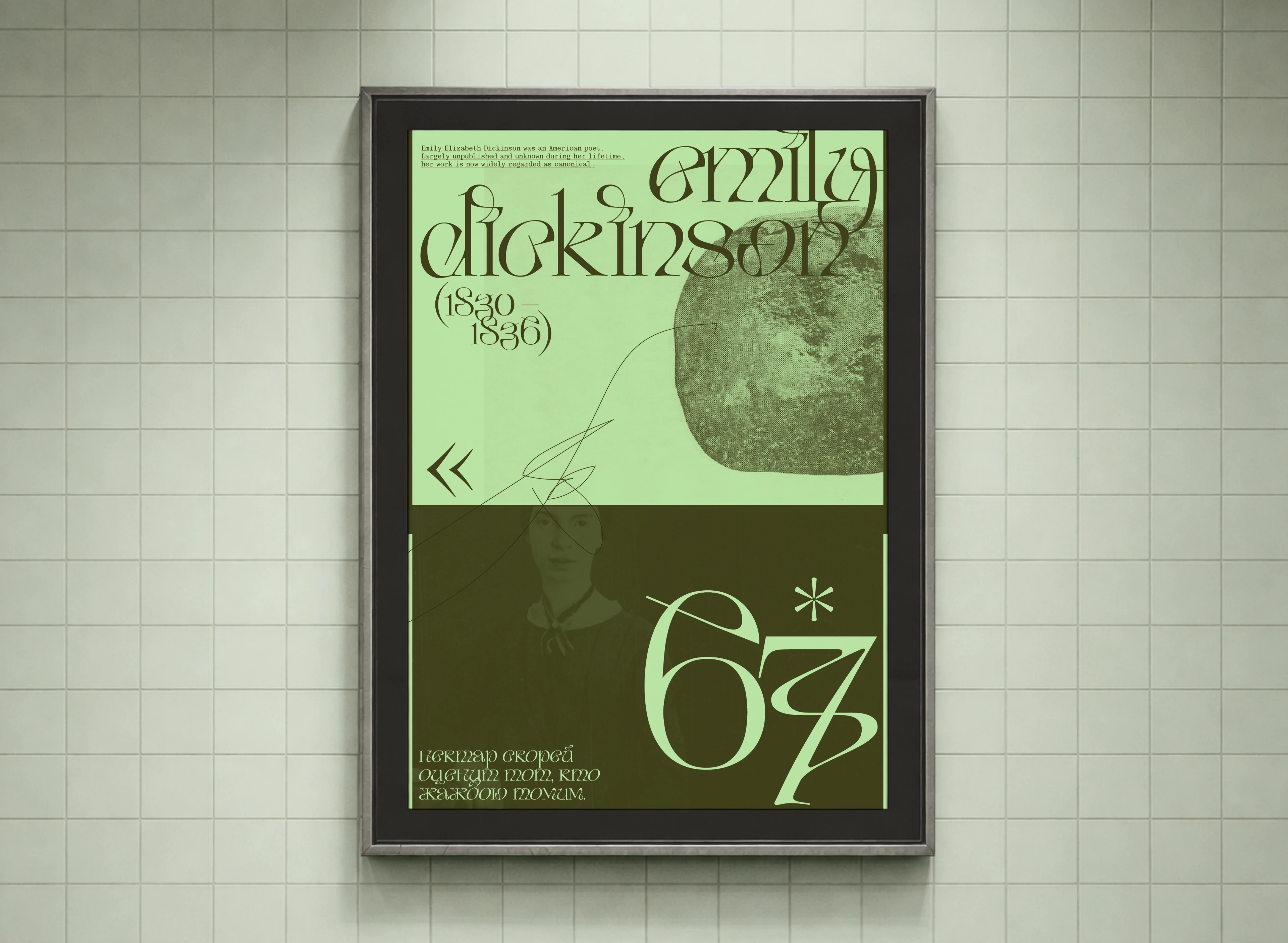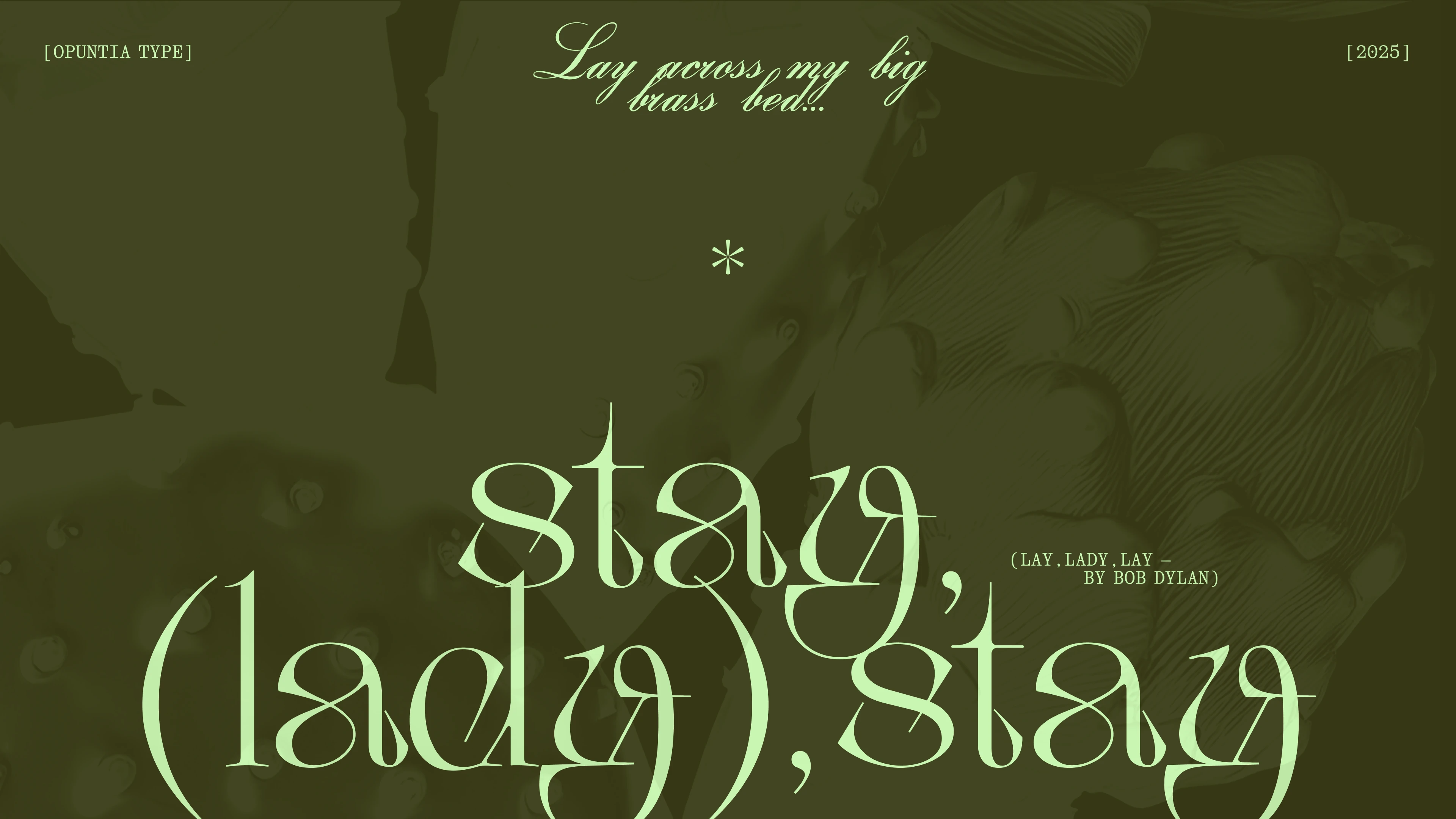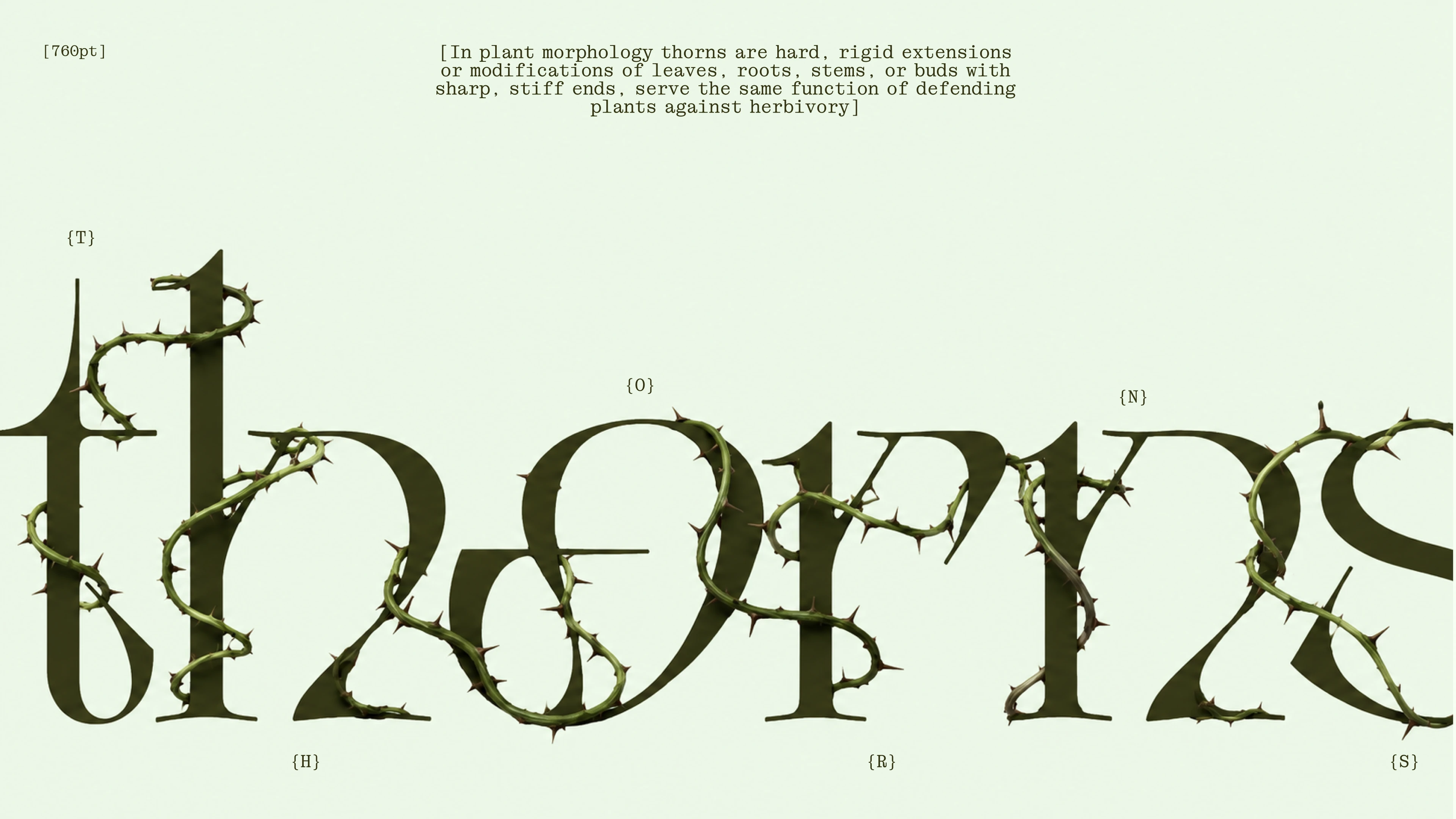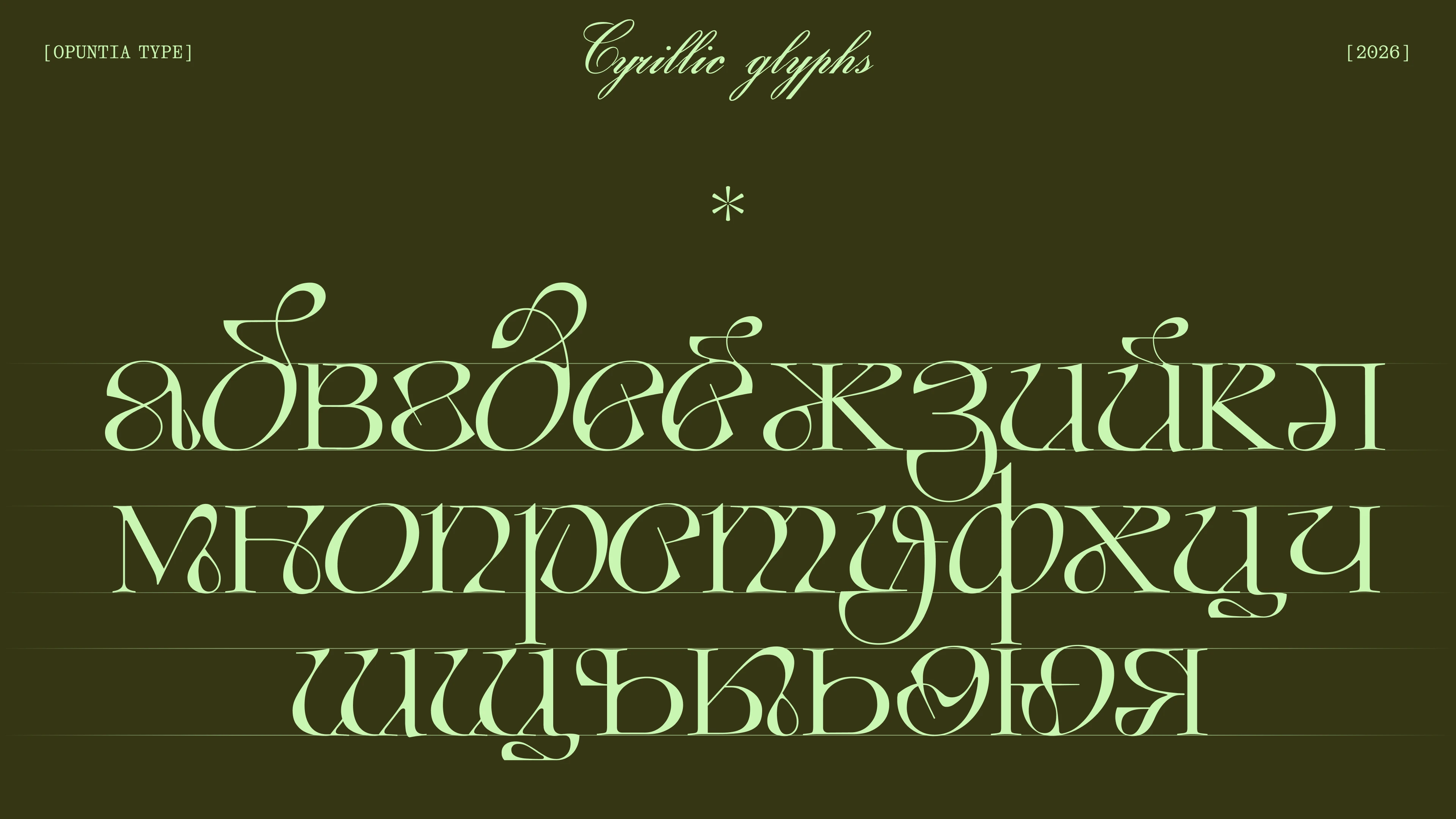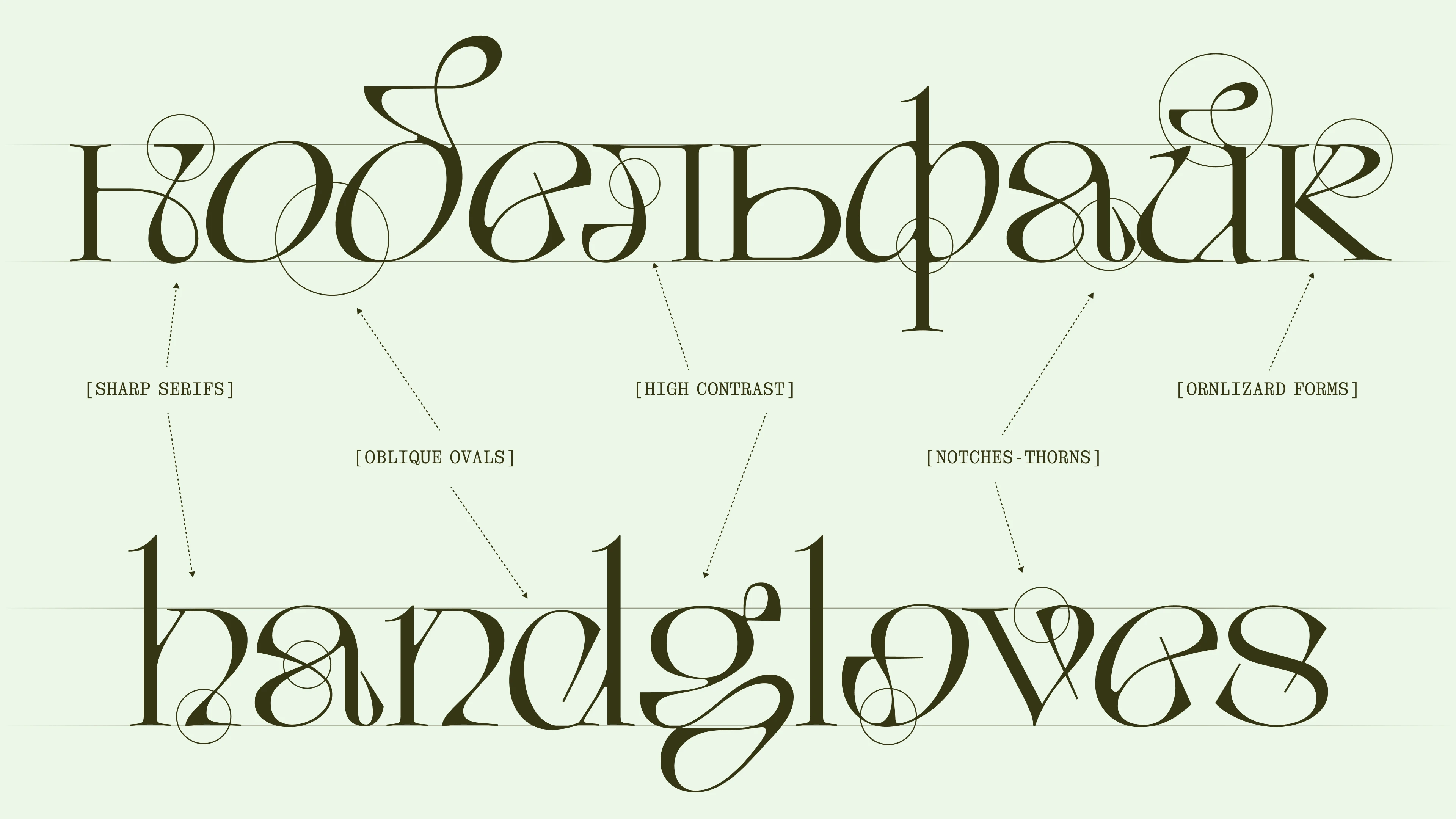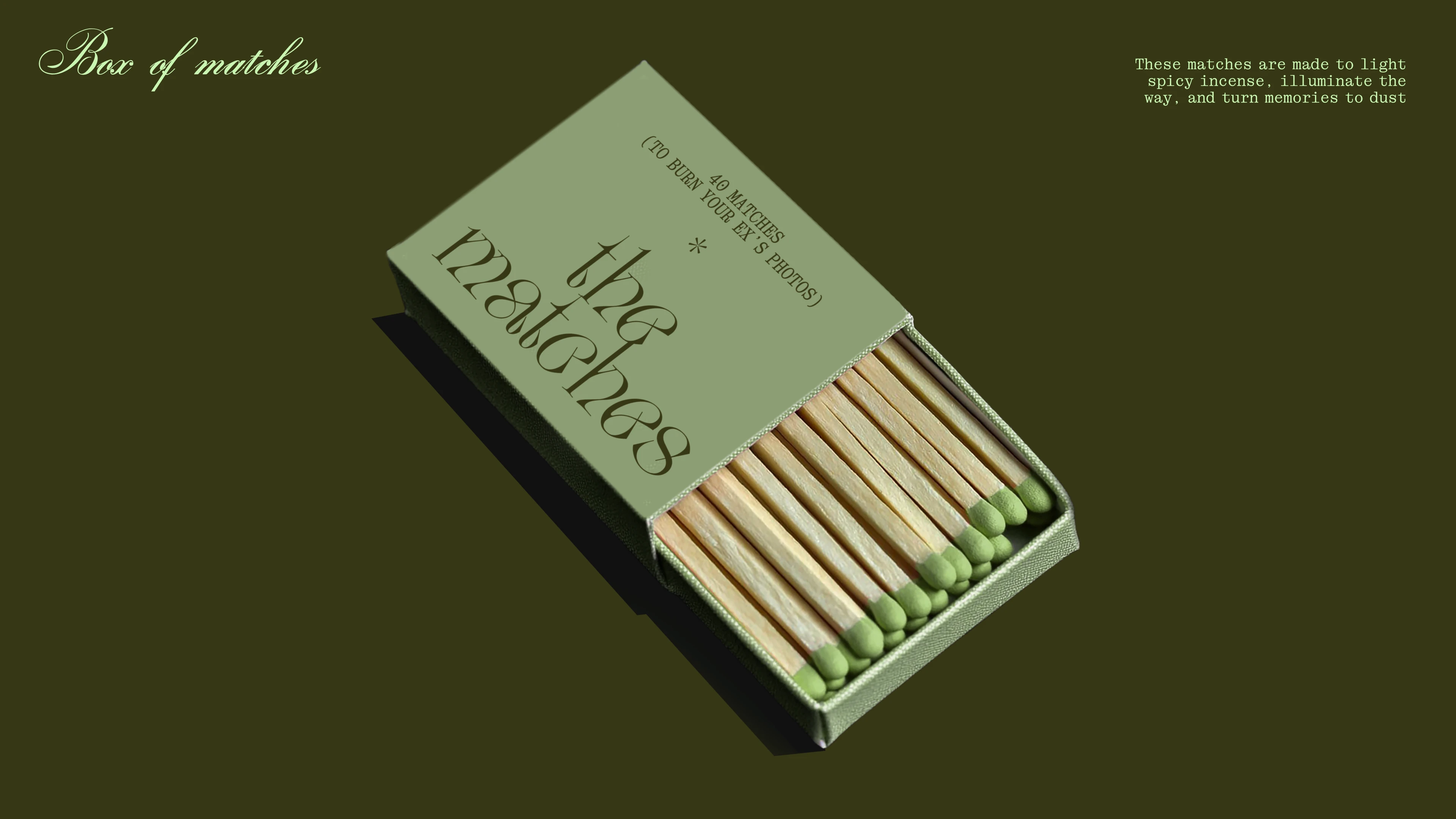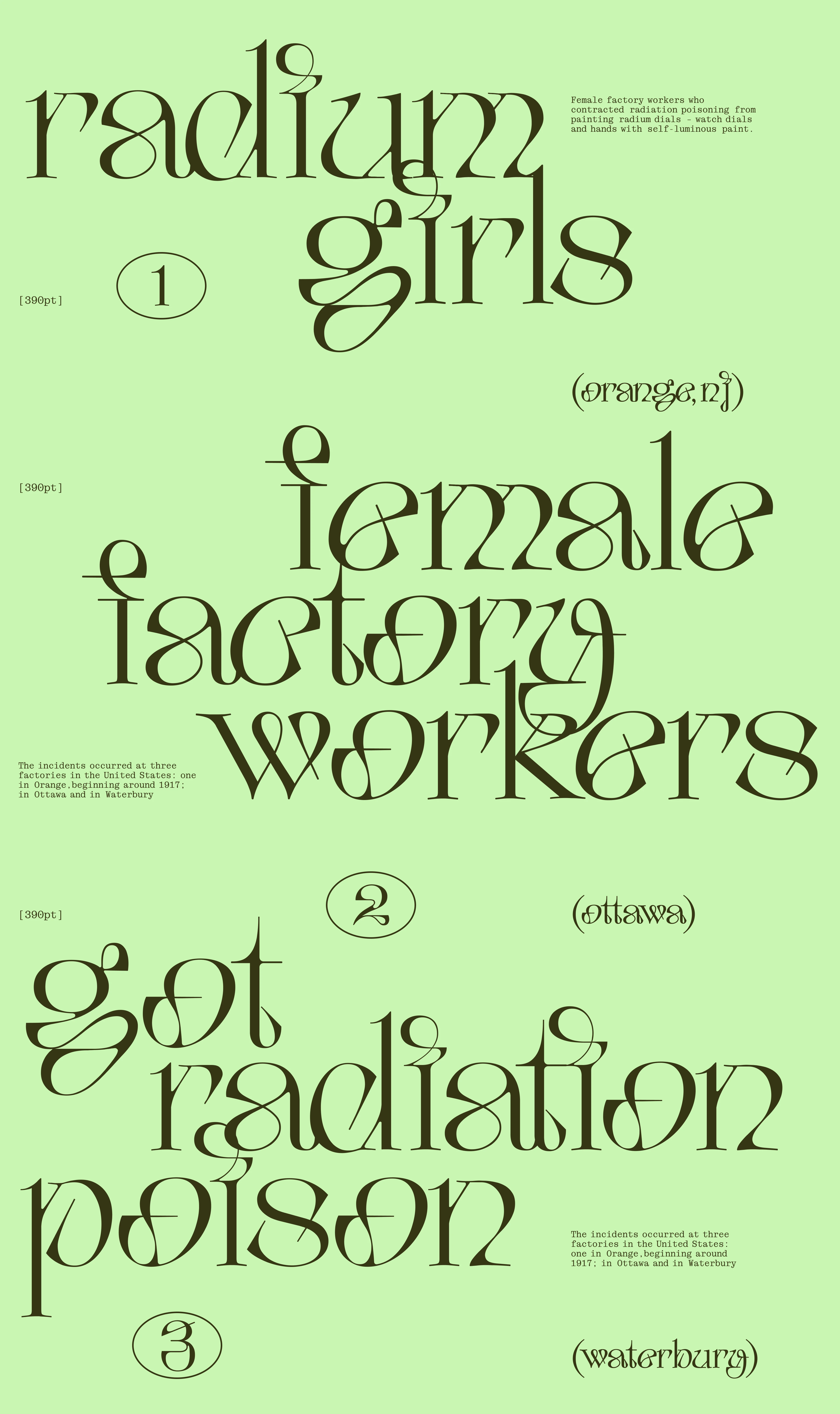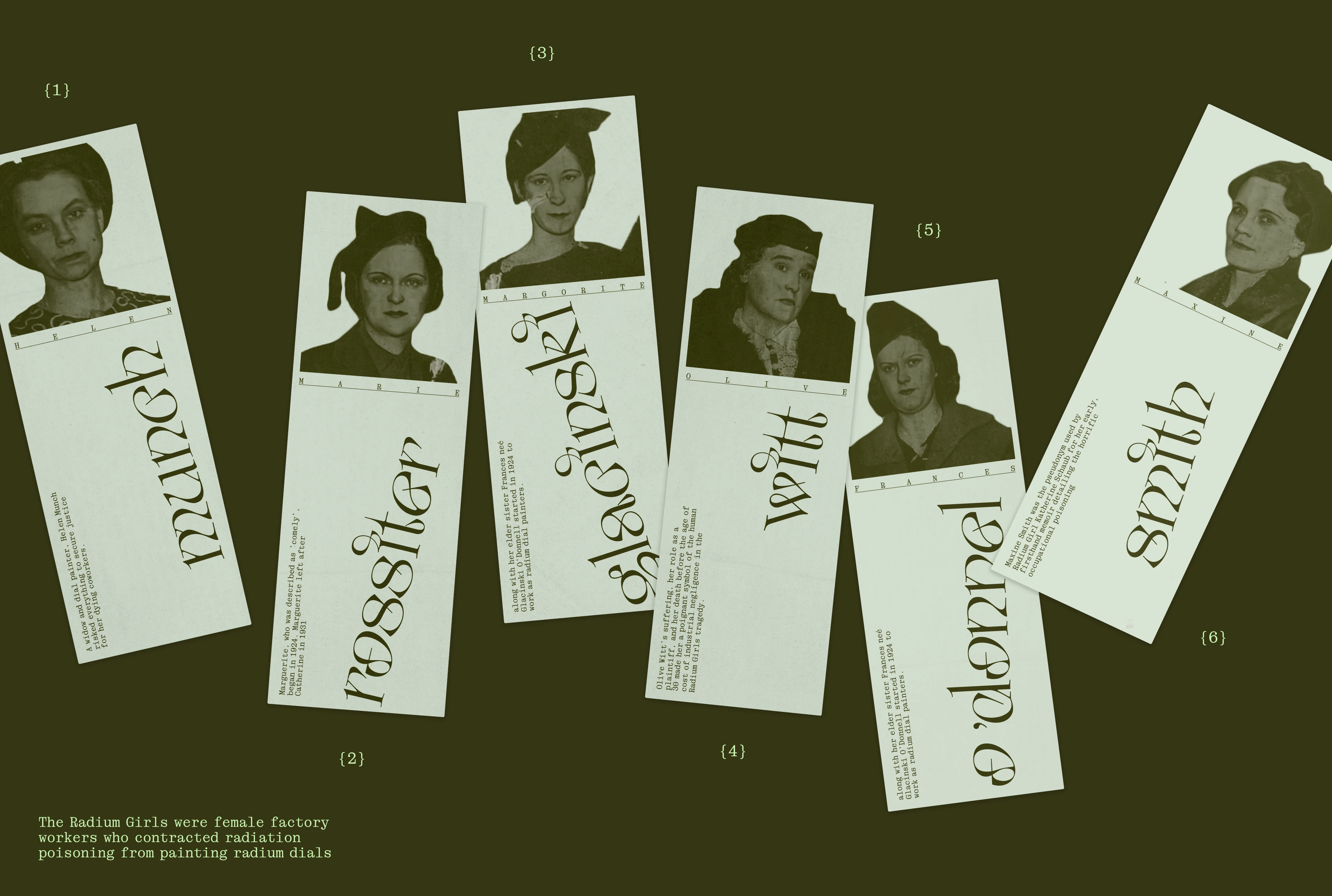
Opuntia display typeface | Cyrillic & Latin | Free font
The highly display typeface Opuntia is the result of an exploration of the sculptural possibilities of the serif. Combining elements of regular and italic typefaces, it balances legibility with decorativeness. The typeface's character is inspired by the feminine yet sharp shapes of the prickly pear, a giant cactus. The typeface is ideal for large, one- or two-word headlines and short phrases.
Сверхакцидентный шрифт Opuntia — итог исследования пластических возможностей антикв. Соединяя в себе элементы regular и italic начертаний, он балансирует между читабельностью и декоративностью. Характер шрифта навеян женственными, но острыми формами опунции, гигантского кактуса. Шрифт идеально подходит для крупных заголовков в одно-два слова и небольших фраз.